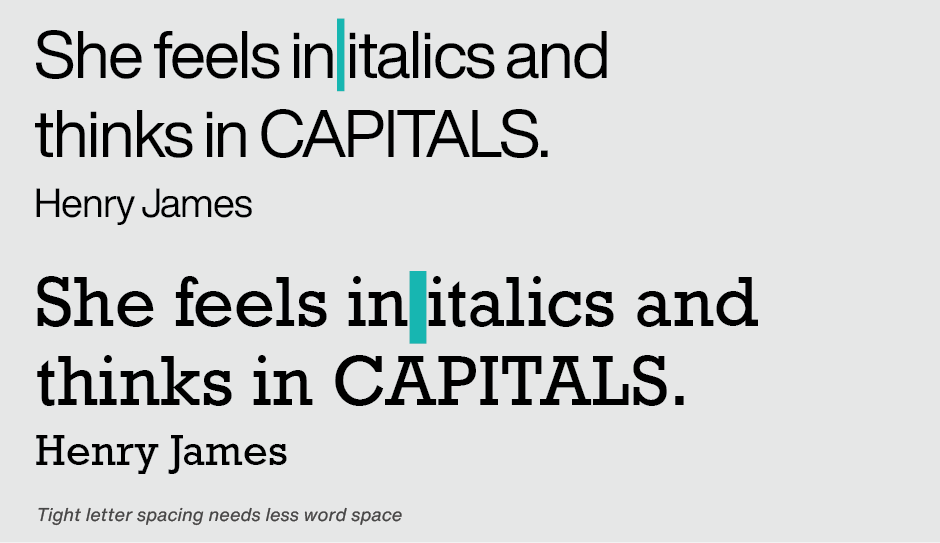
Manual: Word Spacing
„ There is a quick check to determine if there is too much word space. “
Why is Word Spacing Important?
Word spacing is the single most important factor contributing to typographic readability. This seemingly small detail plays an important role in the color, texture and readability of graphic communication. Correct word spacing is something that isn’t noticed: page texture is even, inviting and easy to read.
Word spacing that’s too tight makes it hard for the eye to distinguish one word from the next. Words appear to run into each other. But this is almost never the problem. Open and uneven word spacing is almost always the culprit. When there is excessive word spacing, copy breaks into separate elements, forcing the reader to read individual words rather than phrases or blocks of copy. This dramatically slows down the reading process – and reduces reader comprehension.
Tips for Spacing
Although assigning appropriate space between words is more of an optical determination than an exact science, some typographic factors have a direct and important influence. The best word spacing can be affected by the proportions of a typestyle, letter fit, and point size of the setting.
• A condensed type design requires less space between words than an expanded face.
• A typeface with tight letter spacing needs less word space than a more openly fitting design.
• Larger point settings require slightly less word space than smaller sizes.
There is a quick check to determine if there is too much word space: turn the copy upside down. If one word can be easily distinguished from another, word spacing is too open.